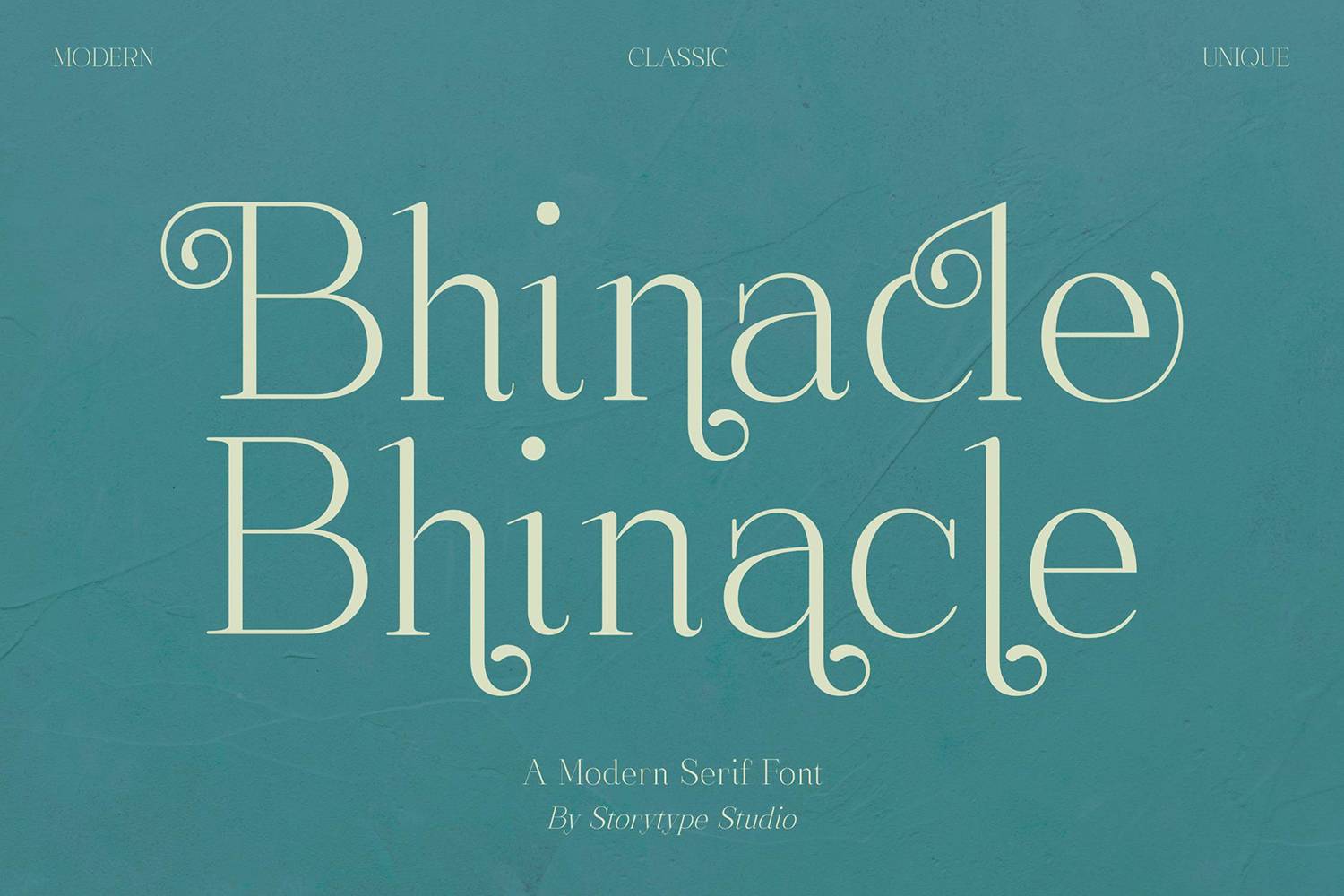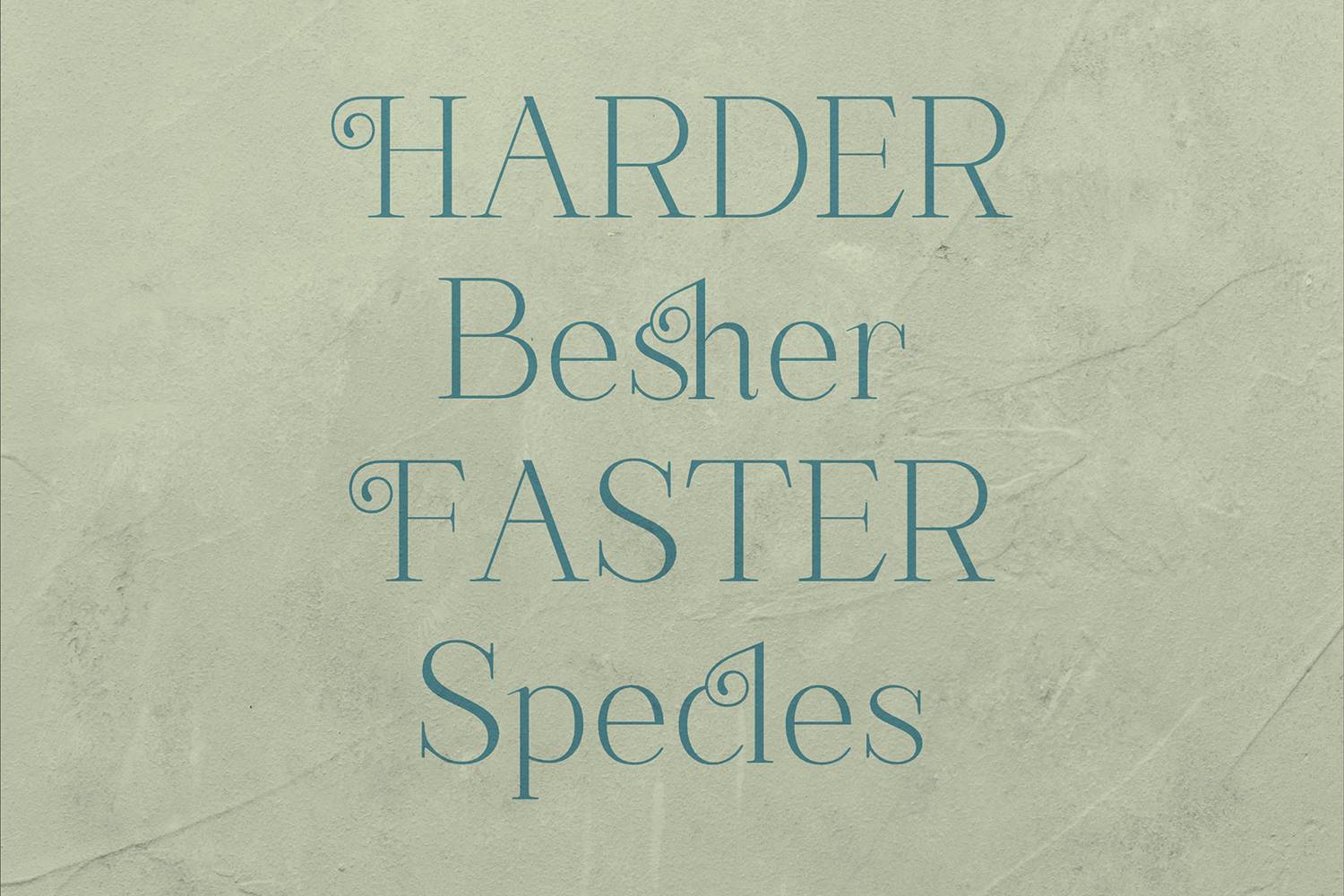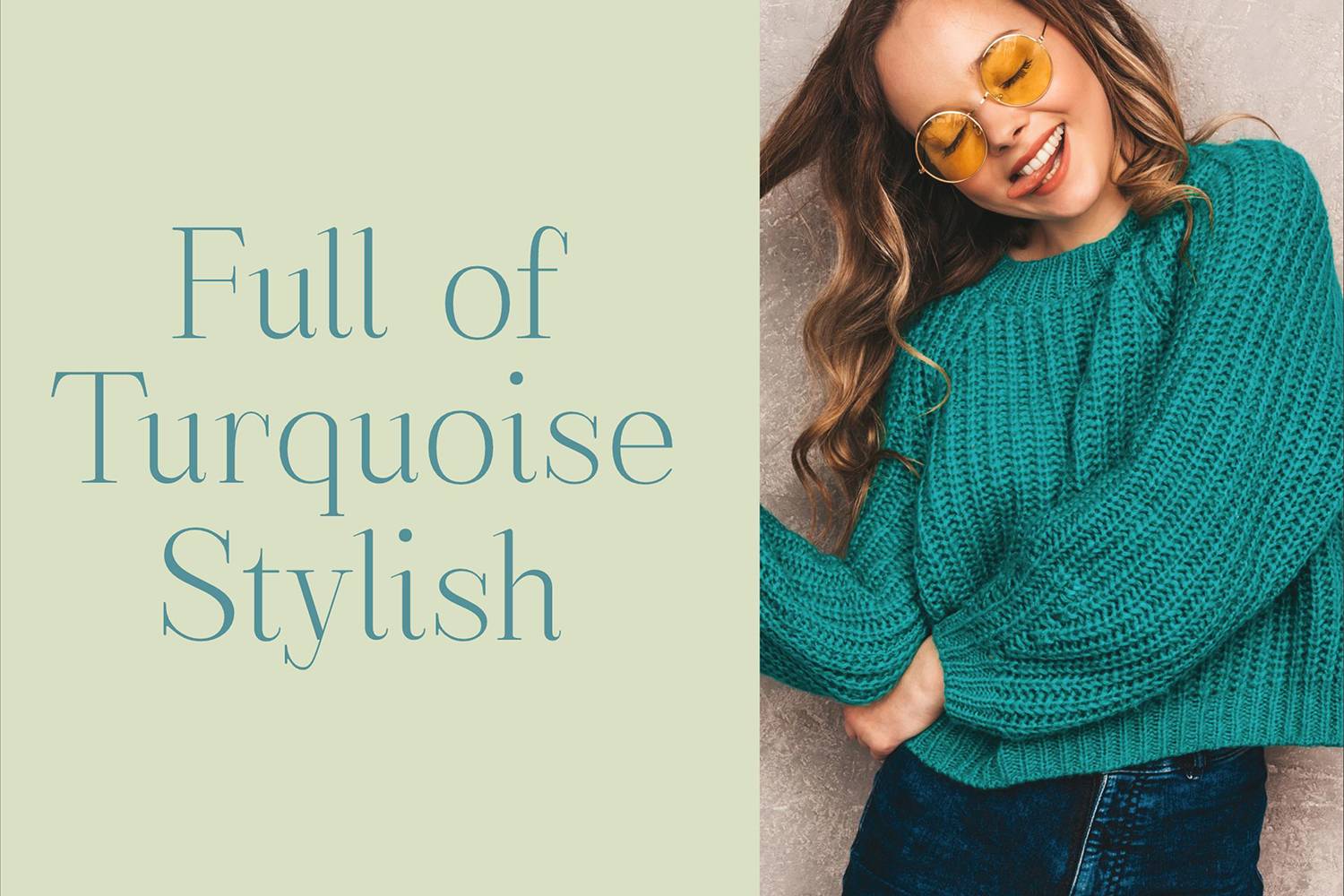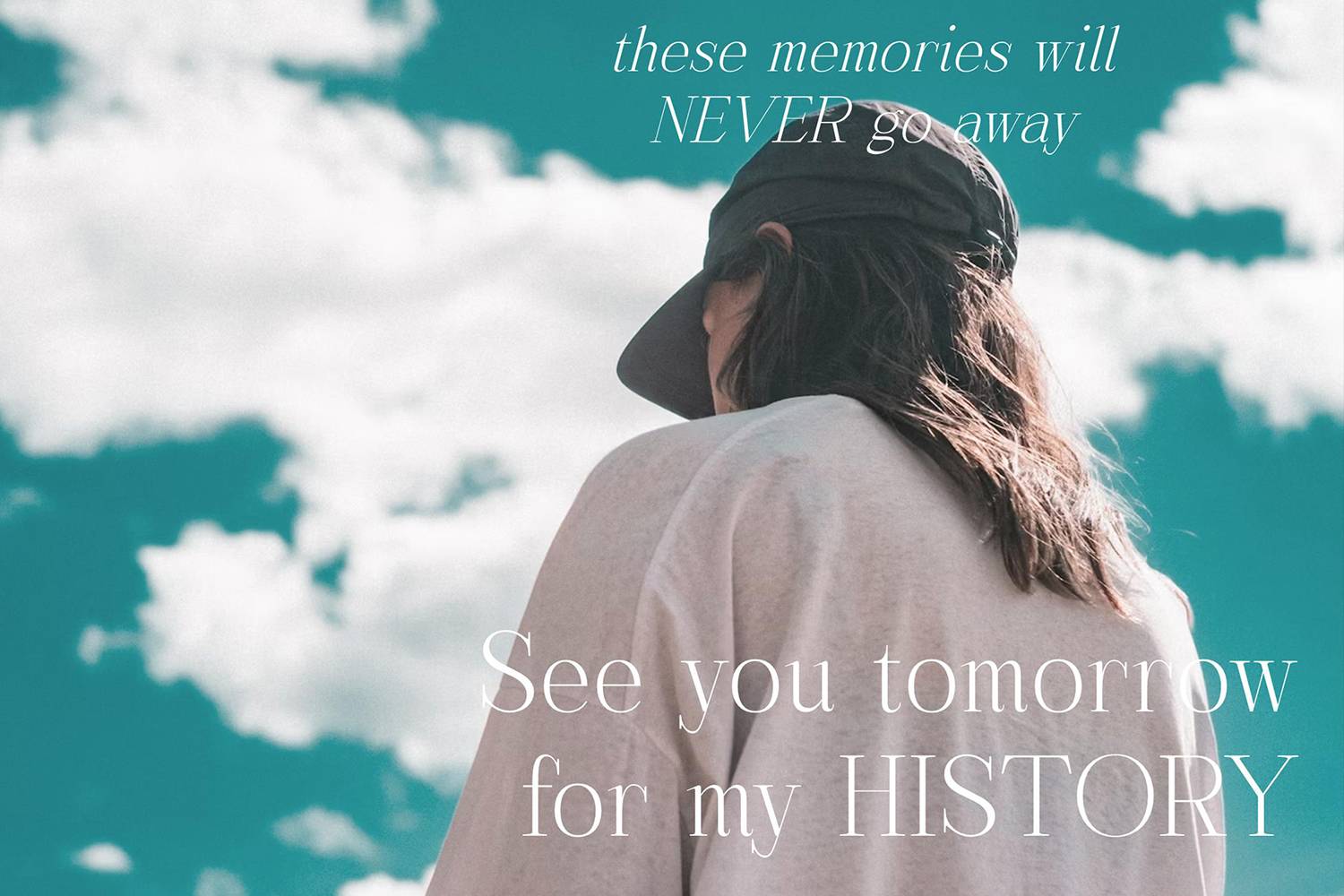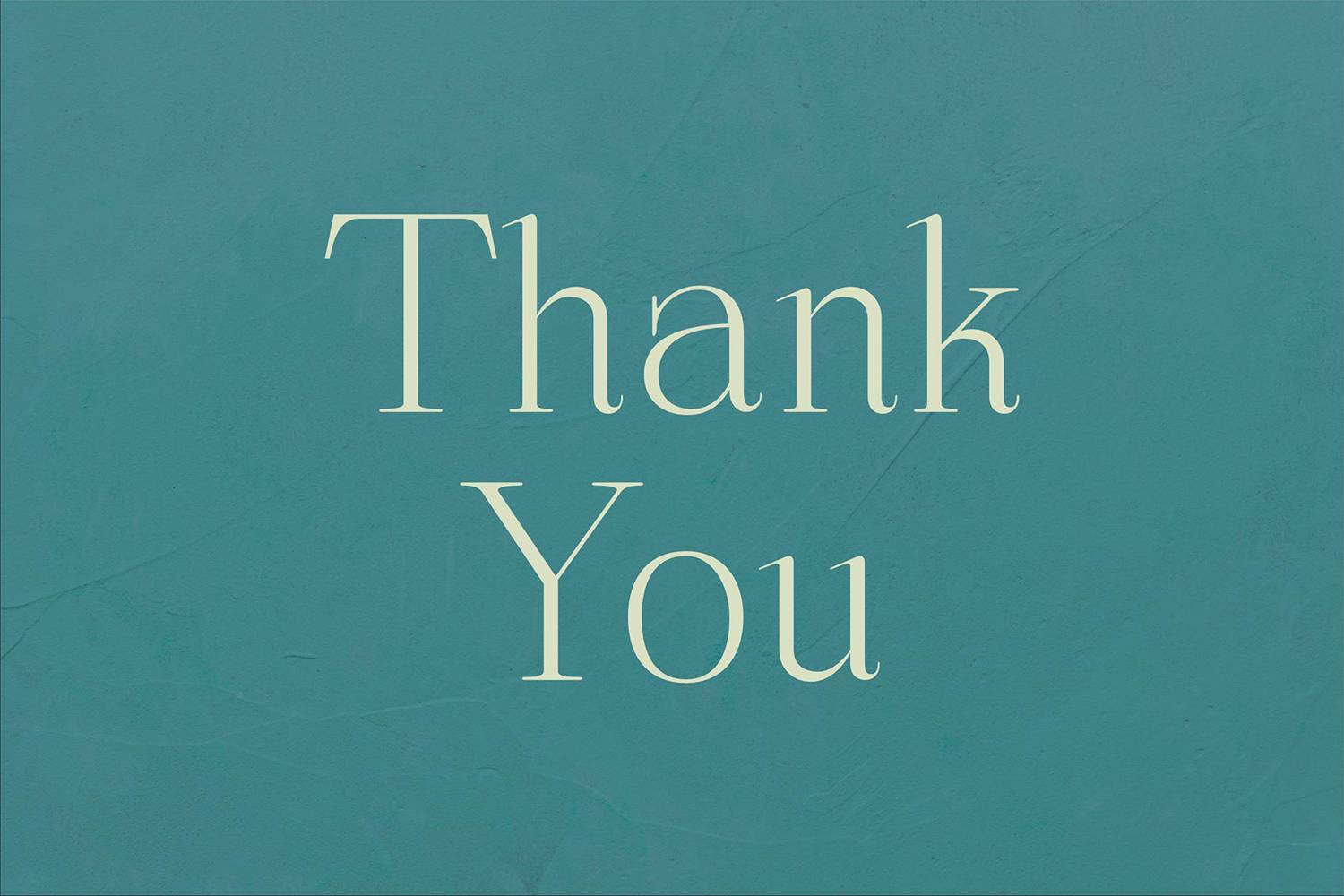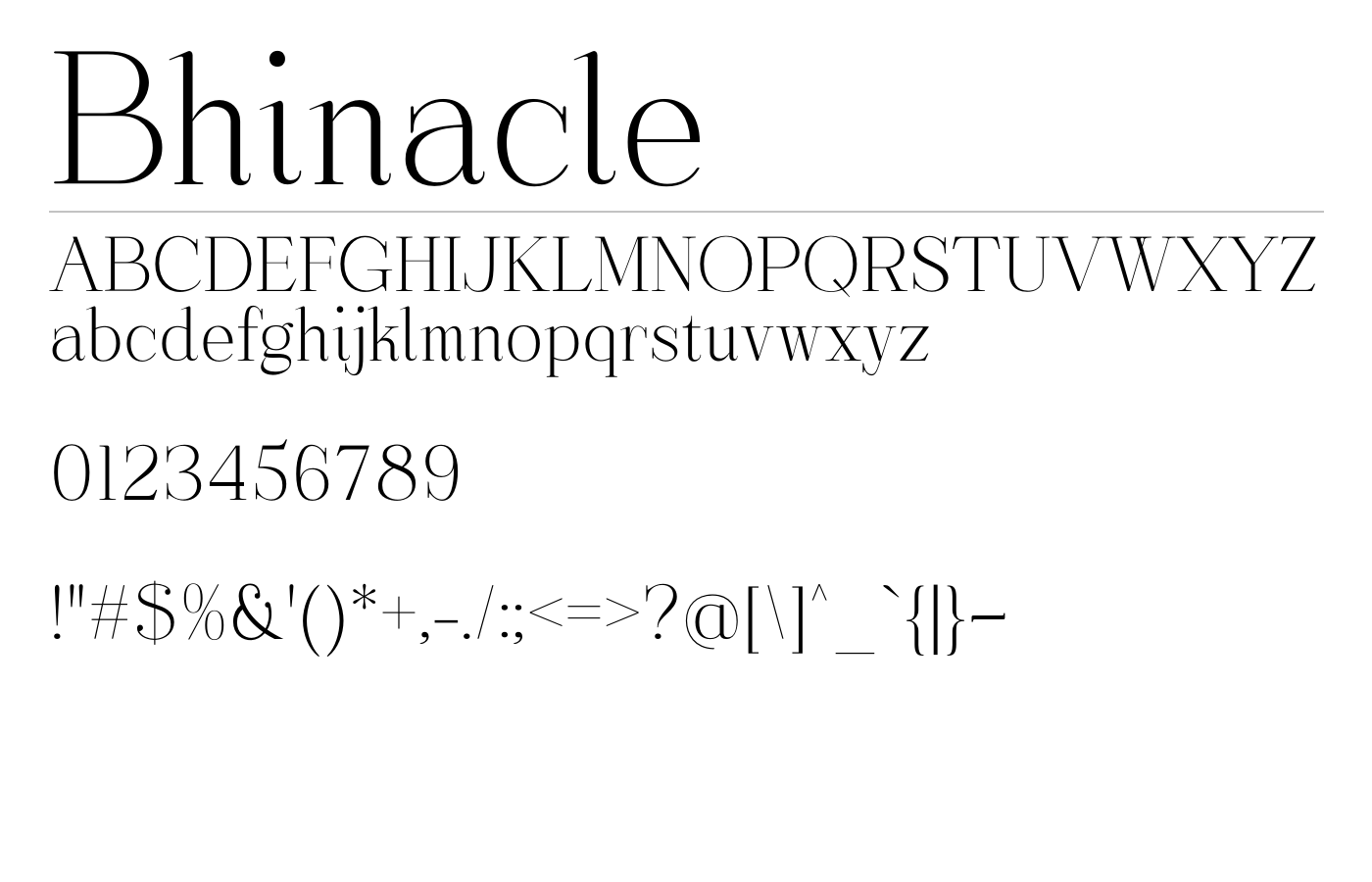
Bhinacle is a refined serif font distinguished by its high contrast between thick and thin strokes, along with elegant, bracketed serifs and a slender, tall structure that imparts a sophisticated and modern feel. Its delicate letterforms, including single-story “a” and unique contours, make it ideal for upscale branding, editorial headlines, and luxury packaging where a touch of classic elegance paired with contemporary style is desired. This font works beautifully in contexts that require a stylish yet readable appearance, elevating any design with its graceful presence.
Bhinacle Font
About Bhinacle Font